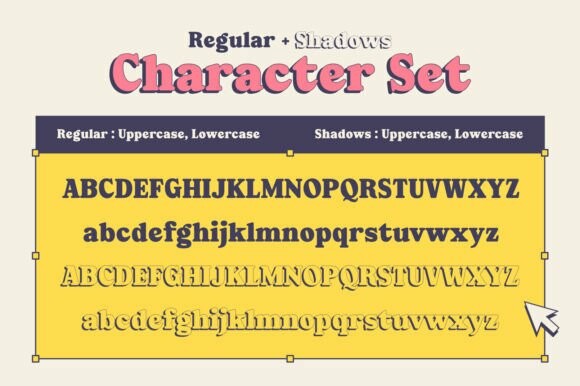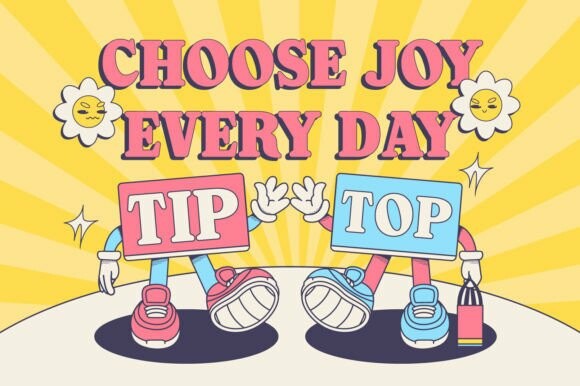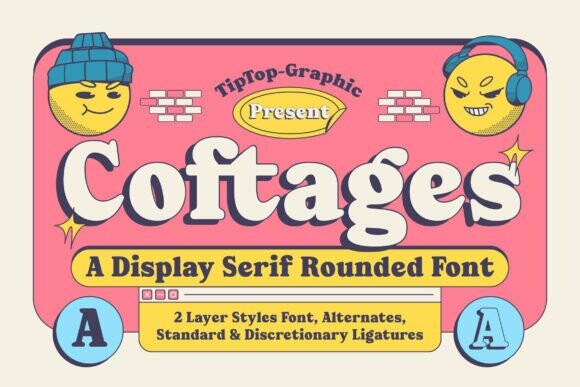
Coftages Font
Designer: Drizy Studio
Coftages Font is the ultimate retro-candy design. This delightful typeface captures the playful essence of vintage candy shops with it’s vibrant, colorful, and irresistibly charming letters. Each character in the Coftages font is meticulously crafted to evoke the nostalgia of sweet treats and old-fashioned confectionery, making it perfect for projects that aim to bring a touch of joy and fun.